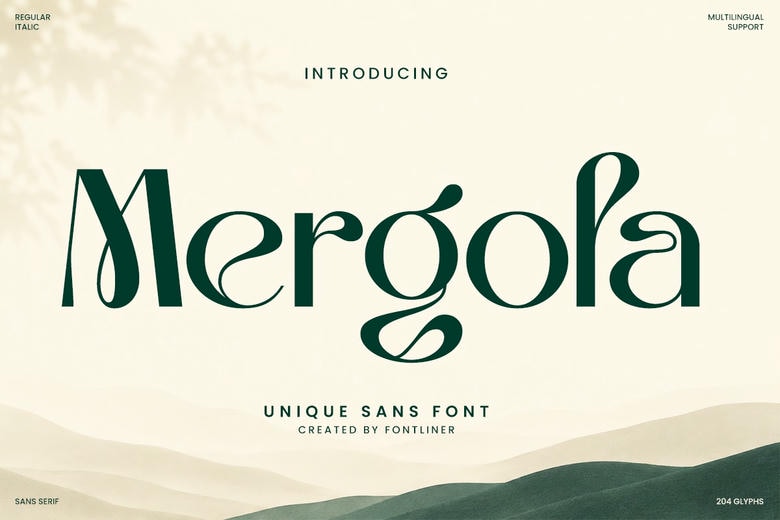
Mergola Font
Mergola is a unique and elegant sans-serif font that combines modern minimalism with artistic curves. Its distinctive letterforms, refined contrast, and graceful alternates give it a luxurious look that can enhance branding, editorial layouts, and high-end design projects.
With its modern style, Mergola works well for luxury fashion brands, beauty products, boutique businesses, wedding stationery, magazines, logos, packaging, and social media content.
Mergola Sans Serif Font